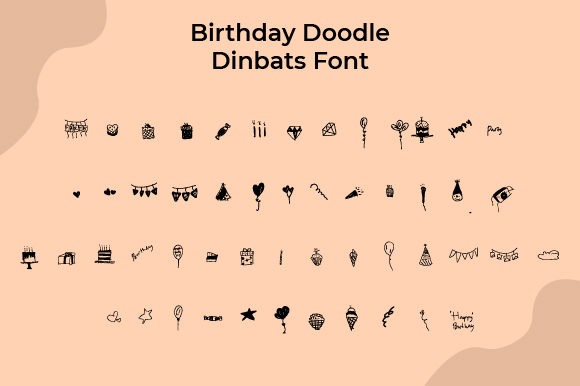
Introducing the Birthday Doodle Font: Elevate Your Creativity with this Unique Dingbats Font
Are you tired of using the same old fonts for your creative projects? Look no further! The Birthday Doodle Font is here to add a touch of whimsy and fun to your designs. This unique and interesting dingbats font is perfect for designers, crafters, and anyone looking to make their ideas stand out.
What is the Birthday Doodle Font?
The Birthday Doodle Font is a dingbats font that features a collection of hand-drawn doodles and illustrations. The font includes a wide range of characters, from birthday-themed icons like cakes, balloons, and gifts, to more general symbols like stars, hearts, and animals. Each character is carefully crafted to be visually appealing and easy to read.
Why Use the Birthday Doodle Font?
So, why should you use the Birthday Doodle Font for your creative projects? Here are just a few reasons:
- Add a personal touch: The Birthday Doodle Font is perfect for adding a personal touch to your designs. The font’s playful and whimsical nature makes it ideal for birthday cards, invitations, and other celebratory materials.
- Stand out from the crowd: With so many fonts available, it can be hard to make your designs stand out. The Birthday Doodle Font is unique and eye-catching, making it sure to grab attention.
- Versatile: The font is versatile and can be used for a wide range of projects, from digital designs to print materials.
- Pair it with other fonts: The Birthday Doodle Font pairs well with other fonts, such as script fonts or bold sans-serif fonts. Experiment with different combinations to find the perfect look for your project.
- Use it for headings: The Birthday Doodle Font is perfect for headings and titles. Use it to add a pop of color and interest to your designs.
- Add it to your digital designs: The font is perfect for digital designs, such as social media graphics, blog posts, and email newsletters.
Ideas for Using the Birthday Doodle Font
The Birthday Doodle Font is perfect for a wide range of projects. Here are a few ideas to get you started:
- Birthday cards and invitations: The font is perfect for creating custom birthday cards and invitations.
- Party decorations: Use the font to create custom party decorations, such as banners and garlands.
- Social media graphics: The font is perfect for creating eye-catching social media graphics, such as Facebook posts and Instagram stories.
- Craft projects: The font is perfect for craft projects, such as scrapbooking and card making.
| Font Name | Birthday Doodle Font |
| Author | Ciriative |
The Birthday Doodle Font is a unique and interesting dingbats font that is perfect for designers, crafters, and anyone looking to add a touch of whimsy to their creative projects. With its wide range of characters and easy-to-use design, this font is sure to become a favorite in your collection. So why wait? Download the Birthday Doodle Font today and start making your designs stand out!
Whether you’re a seasoned designer or just starting out, the Birthday Doodle Font is a great addition to your font library. Its versatility and playfulness make it perfect for a wide range of projects, from digital designs to print materials. So go ahead, get creative, and see what amazing things you can make with the Birthday Doodle Font!